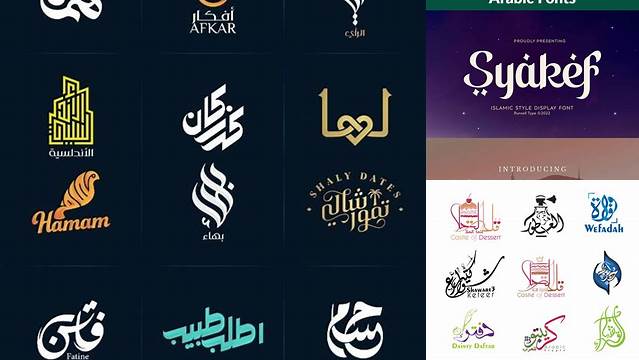
Top Arabic Fonts For Stunning Logo Design
Designing a logo that resonates with your target audience requires careful consideration of every element, and typography is undoubtedly one of the most crucial. When creating logos for brands targeting Arabic-speaking audiences, selecting the best Arabic fonts is paramount. The right font not only conveys the brand's message effectively but also respects and celebrates the rich cultural heritage associated with the Arabic language. So, let's dive into some amazing Arabic fonts that can elevate your logo designs!
1. Traditional Arabic Fonts for Logos
When aiming for a classic and sophisticated look, traditional Arabic fonts are an excellent choice. These fonts often draw inspiration from historical calligraphy styles, evoking a sense of authenticity and heritage. For example, consider fonts like Kufi or Naskh, which have been used for centuries in religious texts and literary works. Using these fonts in a logo can instantly communicate a sense of tradition, reliability, and cultural depth. When you are designing, make sure that the font complements the overall brand identity. For instance, if the brand's values revolve around history, heritage, or luxury, a traditional font will be a seamless fit. Choosing the right weight and size is also crucial. A heavier weight might convey strength and stability, while a lighter weight could represent elegance and subtlety. Remember to test the font in various sizes to ensure it remains legible and impactful across different applications, from business cards to large banners.
2. Modern Arabic Fonts for Logos
For brands seeking a contemporary and forward-thinking image, modern Arabic fonts offer a sleek and stylish solution. These fonts often incorporate geometric shapes, clean lines, and innovative letterforms, making them ideal for businesses in technology, fashion, and design. Think about fonts that blend traditional Arabic calligraphy with modern design principles, creating a unique and visually appealing aesthetic. Using such fonts can help a brand stand out in a crowded marketplace and communicate a sense of innovation and creativity. Choosing the right modern font involves understanding the brand's personality and target audience. A minimalist font might be perfect for a tech startup, while a bolder, more expressive font could suit a fashion brand. Consider the overall visual language of the logo and ensure the font harmonizes with other design elements like color palettes and imagery. Also, make sure the font is versatile enough to be used across various platforms, including websites, social media, and print materials.
3. Calligraphy-Inspired Arabic Fonts
Calligraphy-inspired Arabic fonts bring an artistic and elegant touch to logo designs. These fonts often mimic the fluid strokes and intricate details of traditional Arabic calligraphy, adding a layer of sophistication and beauty. If the brand wants to convey a sense of artistry, craftsmanship, or luxury, then these fonts are a perfect choice. They work particularly well for businesses in fields like art, jewelry, and high-end cosmetics. When using a calligraphy-inspired font, it is important to strike a balance between beauty and legibility. Intricate details can add visual interest, but they should not compromise the font's readability, especially in smaller sizes. Choose a font that complements the overall design aesthetic. You can use the font to create a unique and memorable logo that captures the essence of the brand. Make sure the font is well-suited for both print and digital applications. Different rendering engines may display fonts differently, so test the logo across various devices and platforms to ensure consistent visual quality.
4. Geometric Arabic Fonts for Logos
Geometric Arabic fonts provide a structured and modern aesthetic to logo designs. These fonts are characterized by their clean lines, precise shapes, and balanced proportions, making them ideal for brands seeking a sense of order and efficiency. Companies in industries like technology, finance, and engineering often benefit from the clarity and professionalism that geometric fonts convey. Selecting a geometric font involves paying close attention to the letterforms and their relationship to one another. The font should have a consistent and harmonious design, with each character complementing the overall structure. Consider the font's x-height (the height of lowercase letters) and its impact on readability. A taller x-height generally improves readability, especially in smaller sizes. Also, test the font in different weights to see how it performs under various conditions. A heavier weight can add emphasis, while a lighter weight can create a sense of refinement. Make sure the font works well in both print and digital contexts.
5. Display Arabic Fonts for Logos
Display Arabic fonts are designed to grab attention and make a statement. These fonts are often characterized by their unique shapes, bold designs, and decorative elements, making them ideal for logos that need to stand out. If the brand's identity is creative, expressive, or unconventional, then a display font can be an excellent choice. They work well for businesses in fields like entertainment, fashion, and the arts. When using a display font, it is crucial to balance visual impact with legibility. While the font should be eye-catching, it should not sacrifice readability, especially in smaller sizes. Think about the font's overall aesthetic and how it aligns with the brand's personality. A playful font might be suitable for a children's brand, while a more sophisticated font could work well for a luxury brand. Use the font sparingly and strategically, and test the logo across various applications to ensure it maintains its visual impact and readability.
6. Arabic Fonts with Latin Alternatives
For brands that operate in both Arabic and Latin-speaking markets, Arabic fonts with Latin alternatives offer a seamless and cohesive typographic solution. These fonts are designed to ensure that the Arabic and Latin characters complement each other visually, creating a unified brand identity across different languages. They are particularly useful for international companies looking to maintain consistency in their branding. Selecting an Arabic font with Latin alternatives involves carefully comparing the two character sets. The Arabic and Latin letters should share similar design principles, such as stroke weight, letter spacing, and overall proportions. It ensures a harmonious and balanced appearance. Consider the font's versatility and how well it performs in different contexts. The Arabic and Latin characters should work together effectively in both headlines and body text. Test the font in various sizes and weights to see how it behaves under different conditions. Also, make sure the font supports all the necessary characters and symbols for both languages.
7. Free Arabic Fonts for Logos
Starting a new business or rebranding can be expensive, so free Arabic fonts can be a valuable resource for logo design. Many websites offer high-quality free fonts that can be used for commercial projects, allowing you to create a professional-looking logo without breaking the bank. However, it is essential to carefully review the licensing terms before using a free font to ensure it is suitable for your intended purpose. When choosing free Arabic fonts, quality should be a top priority. Not all free fonts are created equal, and some may lack the polish and attention to detail found in commercial fonts. Look for fonts that have been professionally designed and offer a full character set, including different weights and styles. Consider the font's legibility and versatility. It should be easy to read in various sizes and work well in different contexts. Also, check the font's licensing terms to ensure it is free for commercial use and does not have any restrictions that could limit your ability to use it in your logo design.
8. Premium Arabic Fonts for Logos
Investing in premium Arabic fonts can elevate the quality and sophistication of your logo design. These fonts are typically created by experienced type designers and offer a higher level of polish, detail, and functionality compared to free fonts. Premium fonts often come with extended character sets, multiple weights and styles, and advanced typographic features. Choosing premium Arabic fonts ensures that you are working with a well-crafted and versatile typeface that can enhance the visual impact of your logo. Look for fonts that have been designed with specific purposes in mind, such as logo design or branding. Consider the font's aesthetic and how well it aligns with your brand's personality. Check the font's licensing terms to understand how you can use it and whether it allows for modifications or embedding in digital documents. Also, review the font's documentation to learn about its features and how to use them effectively.
9. Arabic Fonts for Minimalist Logos
Arabic fonts for minimalist logos are characterized by their clean lines, simple shapes, and understated elegance. These fonts are ideal for brands that want to convey a sense of sophistication, clarity, and modernity. Minimalism is a design trend that emphasizes simplicity and functionality, and the right font can help a logo achieve this aesthetic. Selecting an Arabic font for a minimalist logo involves choosing a typeface that is both legible and visually appealing without being overly ornate or decorative. Look for fonts with clean, geometric letterforms and balanced proportions. Consider the font's weight and how it impacts readability. A lighter weight can create a sense of refinement, while a heavier weight can add emphasis. Also, think about the font's spacing and how it affects the overall composition of the logo. Minimalist logos often rely on negative space to create visual interest, so choose a font that allows for ample breathing room.
10. Arabic Fonts for Bold Logos
For brands looking to make a strong and impactful statement, Arabic fonts for bold logos are an excellent choice. These fonts are characterized by their heavy weights, strong letterforms, and commanding presence. They are ideal for businesses that want to project confidence, authority, and energy. When using a bold Arabic font, it is important to consider the overall design context. The font should complement the other elements of the logo, such as the color palette and imagery. Think about the font's legibility and how it performs in different sizes. A bold font can be difficult to read in smaller sizes, so choose a typeface that remains clear and distinct even when reduced. Also, test the font on various backgrounds to ensure it maintains its visual impact and readability.